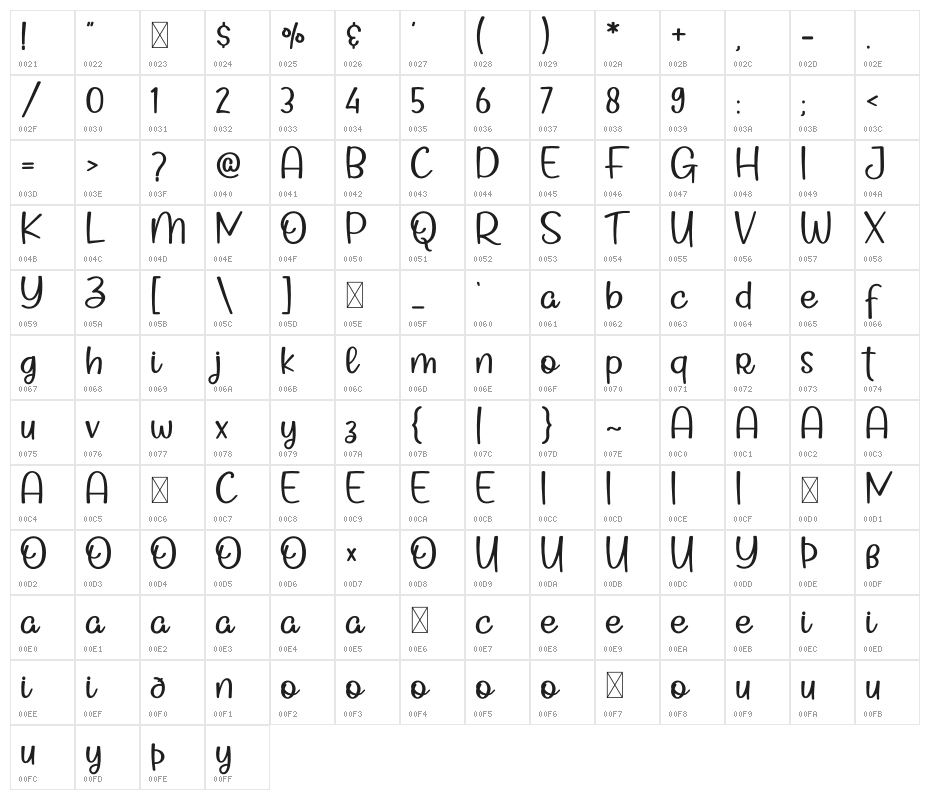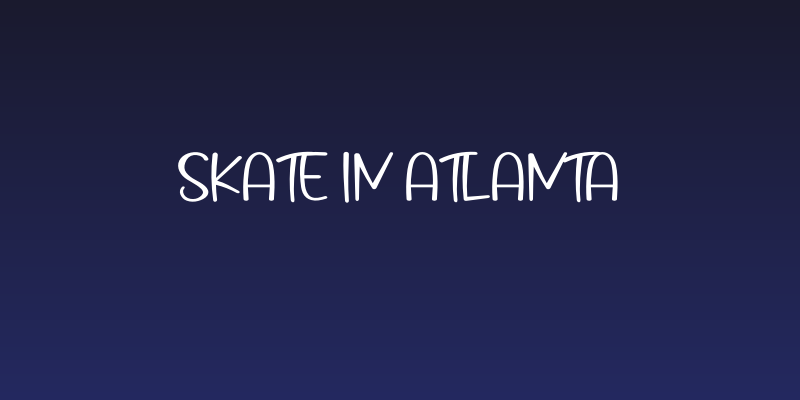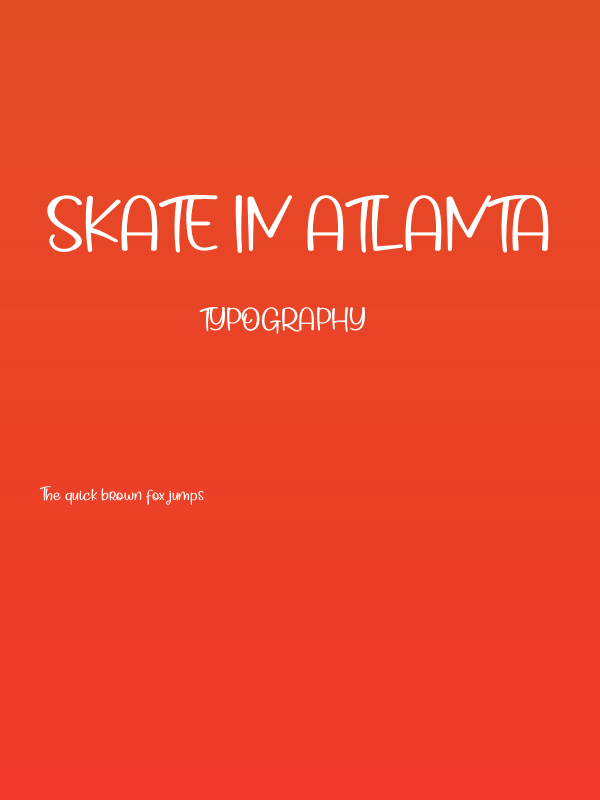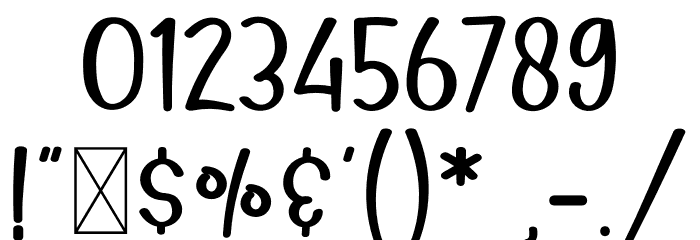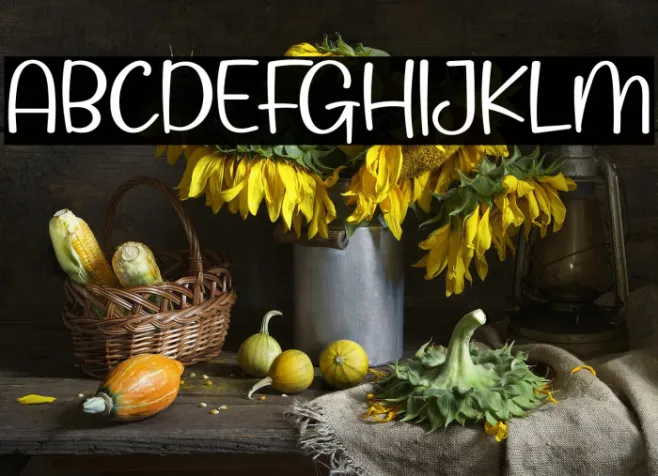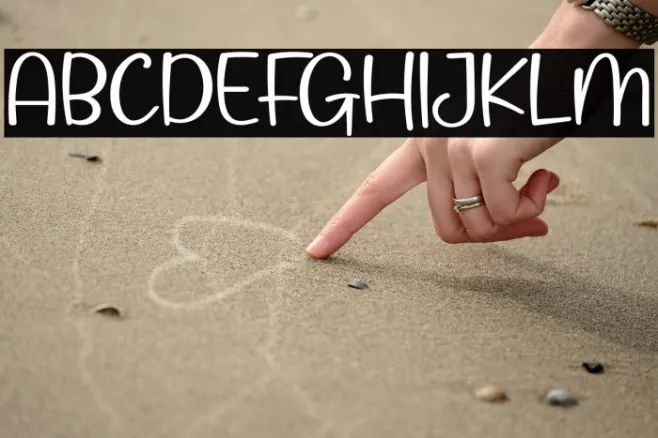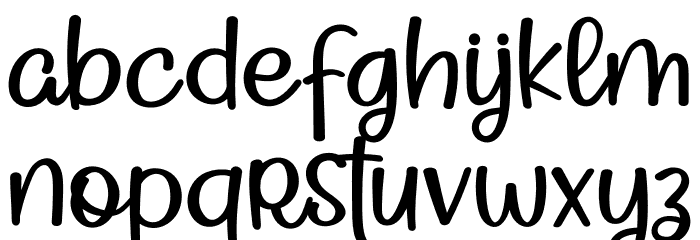
Skate In Atlanta Font
Skate In Atlanta Description
This playful and energetic font features a handwritten style with a casual and friendly appearance. The letters are slightly rounded with a consistent stroke width, giving it a smooth and approachable feel. The uppercase and lowercase letters maintain a cohesive look, with some characters having unique, whimsical touches that add personality. The numerals and special characters are designed to match the overall style, ensuring a harmonious look across all text. This font is perfect for projects that require a touch of fun and creativity, such as invitations, greeting cards, or playful branding.
| Overall Style | Playful, Casual |
| Proposed Projects | Ideal for invitations, greeting cards, playful branding, and creative projects. |